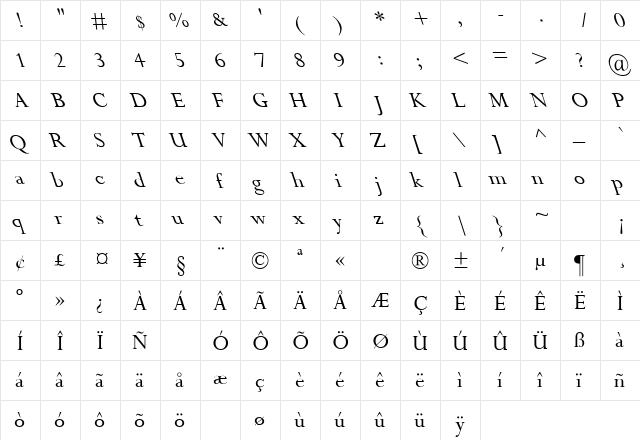
Perpetua Leftified Regular
Design Context for Perpetua Leftified Typeface
Perpetua Leftified is a composed and adaptable typeface that performs quietly and consistently across a wide range of design contexts.